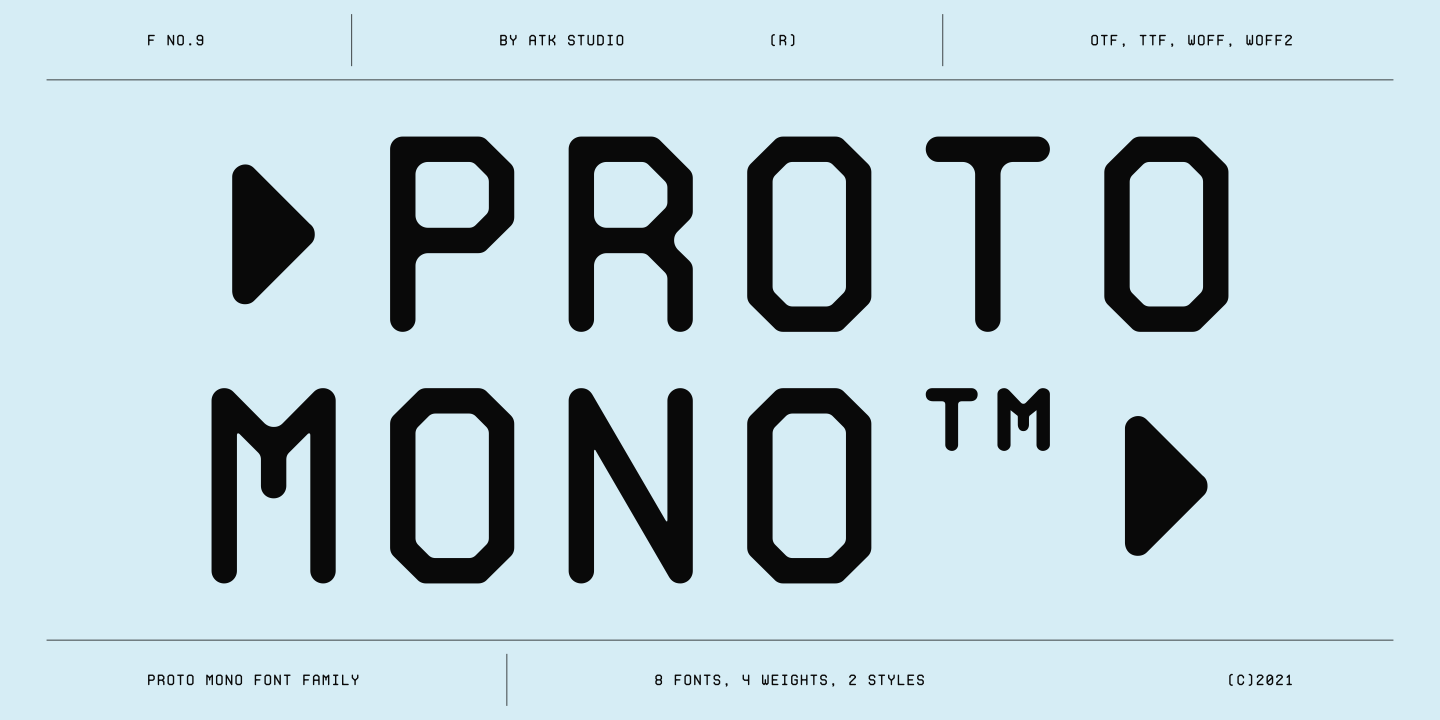
Proto Mono Font is ideal for coding and technical design applications including software development, programming documentation, terminal interfaces, code editors, technical specifications, digital displays, cyberpunk aesthetics, and futuristic user interfaces. This monospaced typeface delivers optimal functionality and cutting-edge visual appeal for technology-focused projects.
What makes Proto Mono Font exciting is its perfect balance between technical functionality and contemporary design aesthetics that creates an ideal coding environment. The font features uniform character spacing, enhanced readability for extended coding sessions, and distinctive letterforms that reduce eye strain while maintaining visual appeal. Its technical precision embodies the efficiency and innovation that modern developers demand.
The Proto Mono Font family includes essential monospaced variations such as Light, Regular, Medium, and Bold weights, each optimized for different coding environments and display applications. These systematic options provide comprehensive coverage for complex development workflows while maintaining consistent character alignment and optimal code readability.
This professional-grade monospaced typeface represents the evolution of programming typography for modern development environments. Software developers and tech companies choose Proto Mono Font Free Download for its exceptional performance in demanding coding applications. The font's technical optimization makes it perfect for code editors, development documentation, and tech interfaces that prioritize both functionality and aesthetic appeal. Its reliable character spacing ensures accurate code presentation while maintaining the modern aesthetic that defines exceptional developer-focused design work.